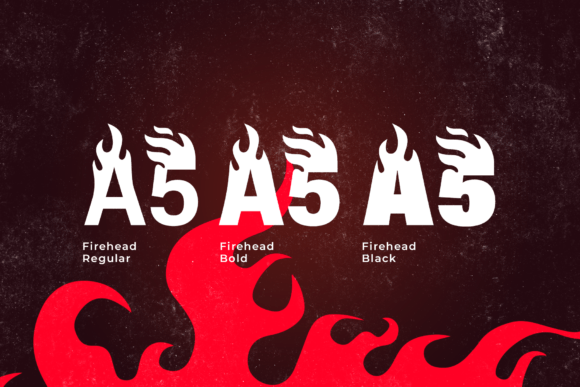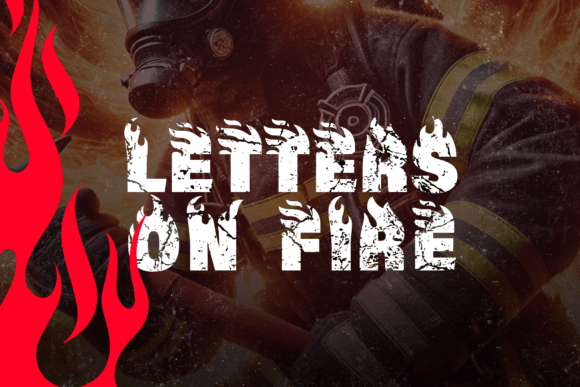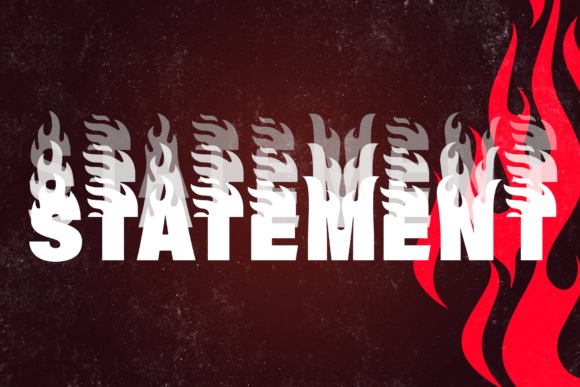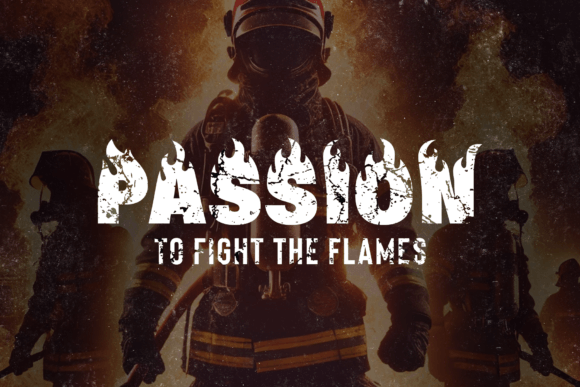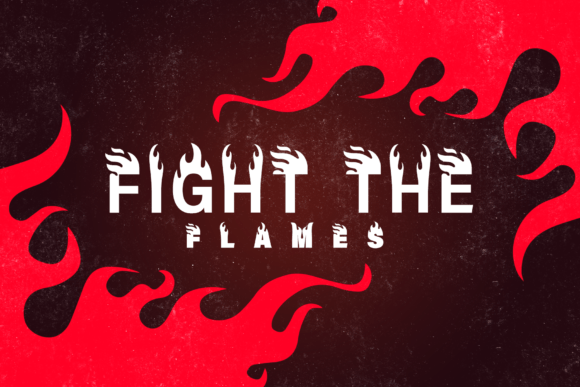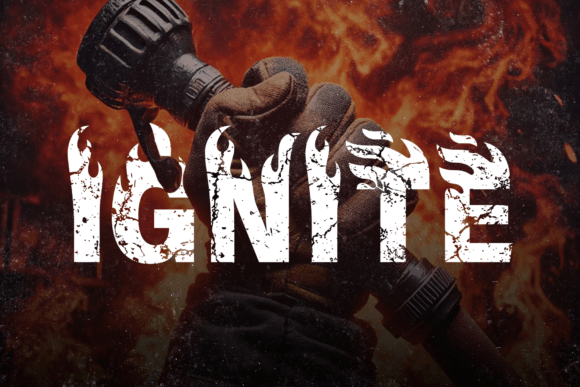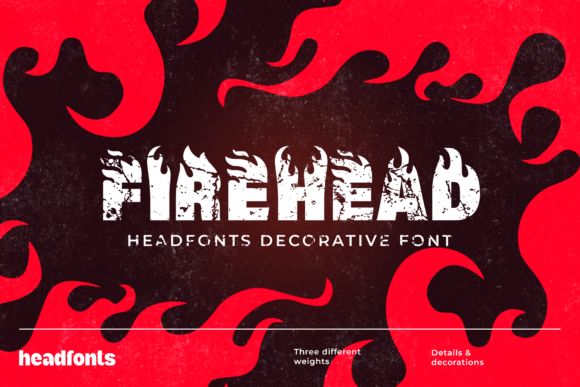
Introducing Firehead: The Blazing Sans-Serif Font to Ignite Your Designs
Are you tired of using the same old fonts that fail to make your designs stand out? Look no further than Firehead, a unique sans-serif font that’s sure to set your creations ablaze. With its bold, eye-catching design and fiery flair, Firehead is the perfect choice for designers and crafters looking to add a touch of drama to their work.
A Font That’s on Fire
Firehead is a decorative typeface that features regular, bold, and black weights, giving you a range of options to suit your design needs. But what really sets Firehead apart is its distinctive flame design, which crowns each uppercase letter. Whether you’re looking to create a bold logo, a spooky Halloween poster, or simply want to add some excitement to your typography, Firehead is the perfect choice.
Perfect for Dramatic Designs
So, what can you use Firehead for? The possibilities are endless! Here are just a few ideas to get you started:
- Logos and branding: Make a bold statement with a fiery logo that’s sure to leave a lasting impression.
- Halloween posters: Create spooky and eye-catching posters that will stand out from the crowd.
- Title sequences: Add a touch of drama to your title sequences with Firehead’s bold, flaming letters.
- Social media graphics: Make your social media graphics stand out with a font that’s sure to grab attention.
Key Features of Firehead
So, what makes Firehead so special? Here are just a few of its key features:
- Unique flame design: Each uppercase letter is crowned with a distinctive flame design, adding a touch of drama to your typography.
- Multiple weights: Choose from regular, bold, and black weights to suit your design needs.
- Sans-serif design: Firehead’s clean, sans-serif design makes it perfect for use in a variety of contexts, from logos to posters.
Why Choose Firehead?
So, why should you choose Firehead for your next design project? Here are just a few reasons:
- Stand out from the crowd: With its bold, eye-catching design, Firehead is sure to make your designs stand out.
- Add a touch of drama: Firehead’s flame design adds a touch of drama to your typography, making it perfect for titles, logos, and more.
- Easy to use: Firehead is a straightforward font to use, with a simple and intuitive design.
Get Ready to Ignite Your Designs
Are you ready to take your designs to the next level with Firehead? With its unique flame design, multiple weights, and clean sans-serif design, Firehead is the perfect choice for designers and crafters looking to add a touch of drama to their work. So why wait? Download Firehead today and get ready to ignite your designs!
In conclusion, Firehead is a unique and exciting font that’s sure to set your designs on fire. With its bold, eye-catching design and fiery flair, Firehead is the perfect choice for designers and crafters looking to add a touch of drama to their work. Whether you’re looking to create a bold logo, a spooky Halloween poster, or simply want to add some excitement to your typography, Firehead is the perfect choice. So why wait? Download Firehead today and start creating bold, eye-catching visuals that are sure to leave a lasting impression.